Magola is a creamy flavor font family whose purpose is to season with emotions the reading of words and phrases formed by puffy glyphs coated with a caramel of empty spaces external and internal. Independently or in groups, members of the family serve to decorate and organize packaging or advertising material in letters apparently crafted for food or entertainment contexts. Its starting point was to draw letters like a ballon fish evolved into a black version with empty areas and microscopic contrasted with colorful inflated and filled areas. Then the challenge was based on the sum transferred between full and empty into a lighter caliber.In that vein, its overall design adapted skeletons of italics and Roman calligraphy. Therefore, its regular, bold and black files have great height “x” with upwards and downwards extremely short and large internal counterblocks to facilitate reading. In this regard, to strengthen its objective and capture the reader’s attention, its kind of contrast and simulated auctions flat tip brush strokes, and amount of contrast between thick and thin in the black version is slightly inverted. Its sizes, smooth strokes and irregular lines reinforce its traditional spirit, so it is favorable to shine the information on posters or large-format media.In short, its optical conformation based on a non-literal way, in metrics similar in all family members to be easily exchanged without changing the ìxî height. It is therefore a striking and versatile tool, that besides being useful in large sizes, can be used in small sizes as well. And more importantly, its general concept is more profitable when its members are mixed to nest headings, subheadings and short paragraphs, designed according to size, position, color and location in logos, covers, posters, ads and flyers.
Scrittura was inspired by Anton Scholtz’s font, Honeybird, and developed into a contemporary variation with three styles.Scrittura Moderna: sleek and calligraphic. A dramatic, vigorous yet elegant font, whose upright letter shapes flow into each other like molten gold. Use Moderna for marketing cosmetics and clothing, for book covers, greeting cards, wedding stationery.Scrittura Antiqua: weathered, almost grungy. A new font with an “antique” look , reminiscent of ancient parchment manuscripts. Use Antiqua for certificates, medieval banquet or wedding stationery, theatre posters and programs, and book covers.Scrittura Fantasia: magical and ghostly. A slightly distorted, evoking Halloween, the Day of the Dead, and your favorite horror movie. Use Fantasia for horror comic covers & posters, horror movie posters, CD covers, Halloween material.The font contains over 272 characters - (upper and lower case characters, punctuation, numerals, symbols and accented characters are present). It also includes "open-type"characters to enhance the flow of the text. It has all the accented characters used in the major European languages.
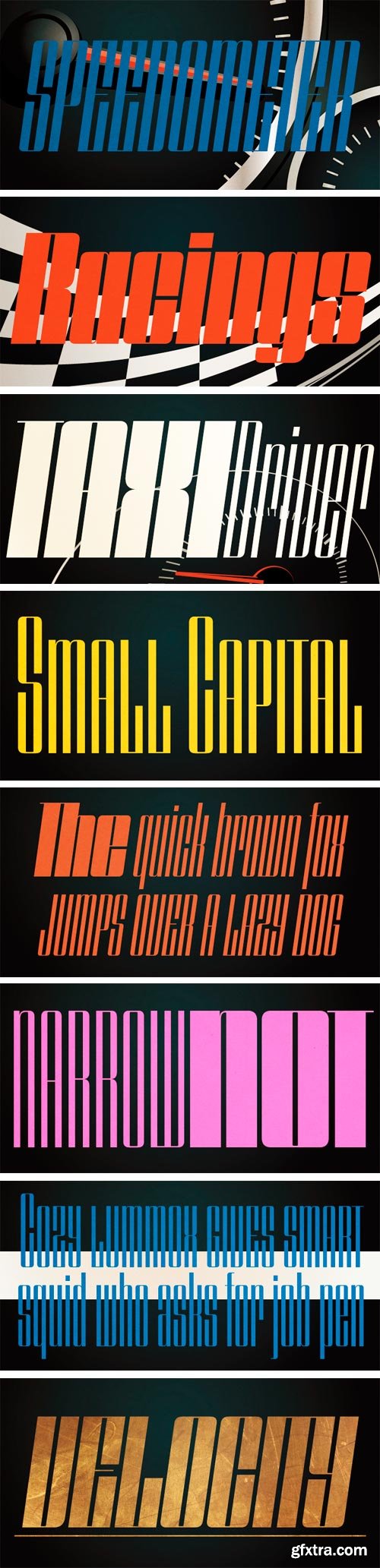
Speedometer is derived from Dimensions font family that is most narrow and black font for titling and logo. This speedometer is more elegant by its contrast between the thickness of stem and thinness of the arms than Dimensions. This contrast makes more vigorous and speedy impressions too. All 6 weights and italics have upper and lower cases, accented characters and small capital glyphs that can be used with OpenType smcp feature.
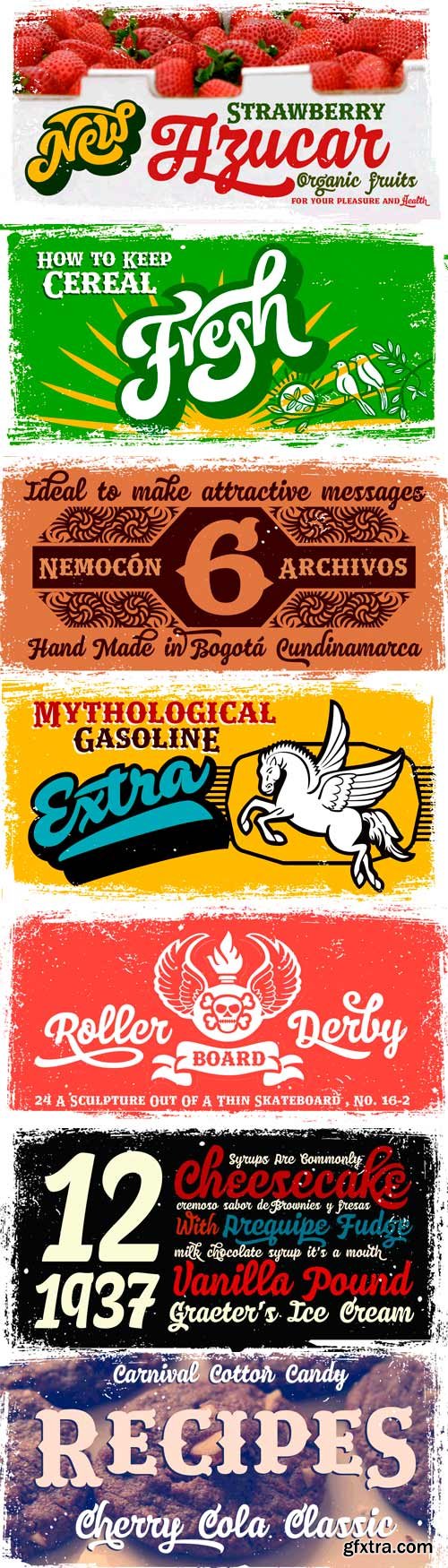
Nemocon is a display font family designed by Carlos Fabian Camargo G. Nemocon It is ideal to make attractive messages. Nemocon has over 2200 glyphs distributed in 6 files OT designed from handmade lettering and usability testing. Nemocon Script (1382 glyphs): based on the rotation of a flat tip brush. Its letters correspond to the uninterrupted calligraphic logic, as well as similar ingredients as the ones used in font Brush Script by Robert E. Smith, created for the American Type Founders in 1942. Nemocon Tuscan (375 glyphs): Inspired by representative types of wood from the 19th century, specifically speedball brawny Tuscan capitals with serifs fishtail shaped. Nemocon Catchwords (115 glyphs) + Nemocon Catchwords Shadow (115 glyphs): categorically inflated words with and without shadows, to accompany, highlight and prioritize. Nemocon Dingbats (114 glyphs) + Nemocon Containers(150 glyphs): unconventional pictograms consisting warm and comforting thoughts designed to highlight words or phrases which needed multicolored illustrations or drawings in black and white.
Sketchetik is a hand-drawn font in four styles: light, regular, bold and black.It is recommended for use as a display typeface.
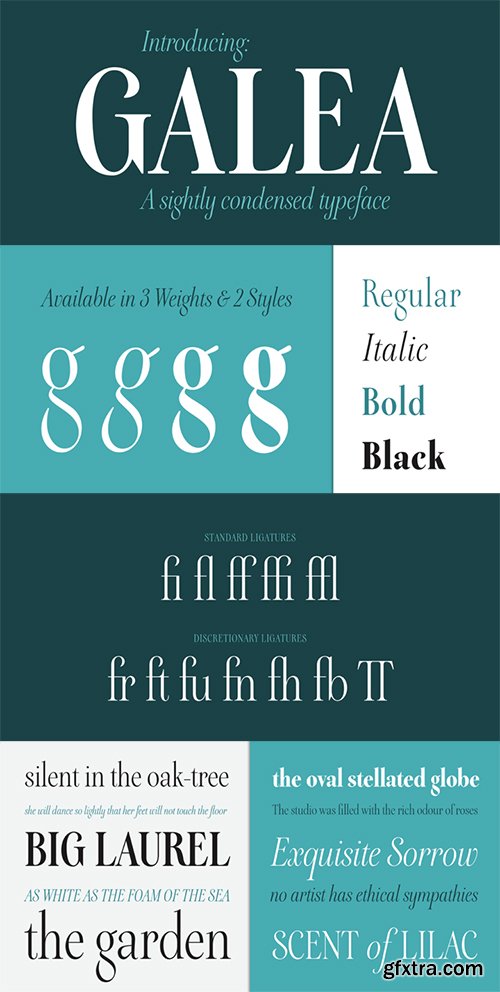
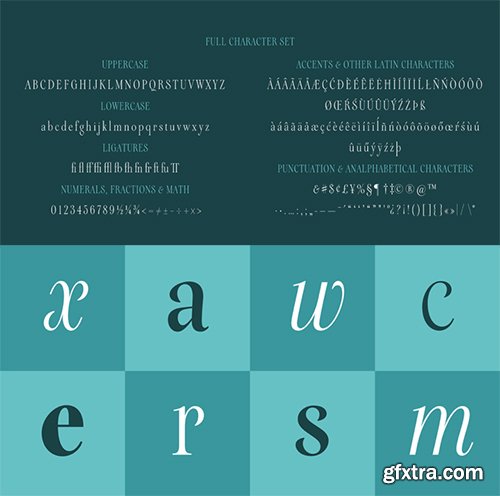
Galea is a slightly condensed serif typeface with long extenders. Its elongated proportions and graceful terminals seek to bring femininity and elegance to any layout. It is a display face that works well at large sizes in editorial contexts as a headline, titling or introduction to a text. Galea was designed by Isabel Urbina Peña while at Cooper Union’s  Extended Program, 2012 and released on May, 2014.Galea obtained an Honorable Mention from the Fine Press Book Association in the Text Family Category, 2013. Also, it is featured in the book "Playing with Type: 50 Experiments" by Lara McCormick, Rockport Press, on Parenthesis Magazine, Autumn 2013 on Behance’s Typography Served and will appear on “Typography Magazine”, Japan (Nov 2014).
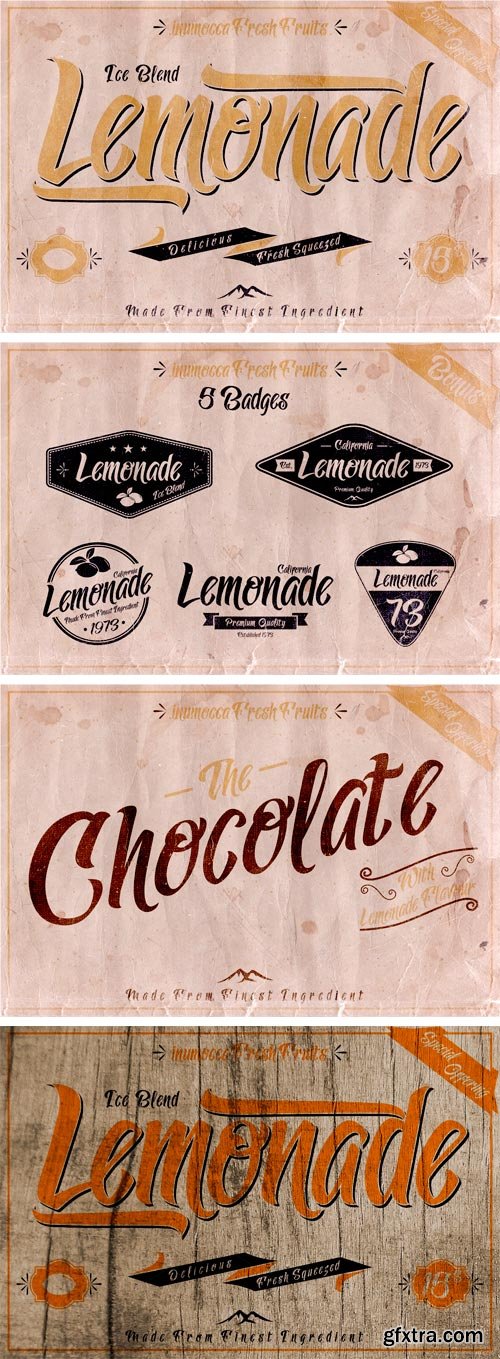
Lemonade font inspired from vintage style of packaging. Its really great font for your band, company, label, clothing company, vintage or classic stuff, etc.
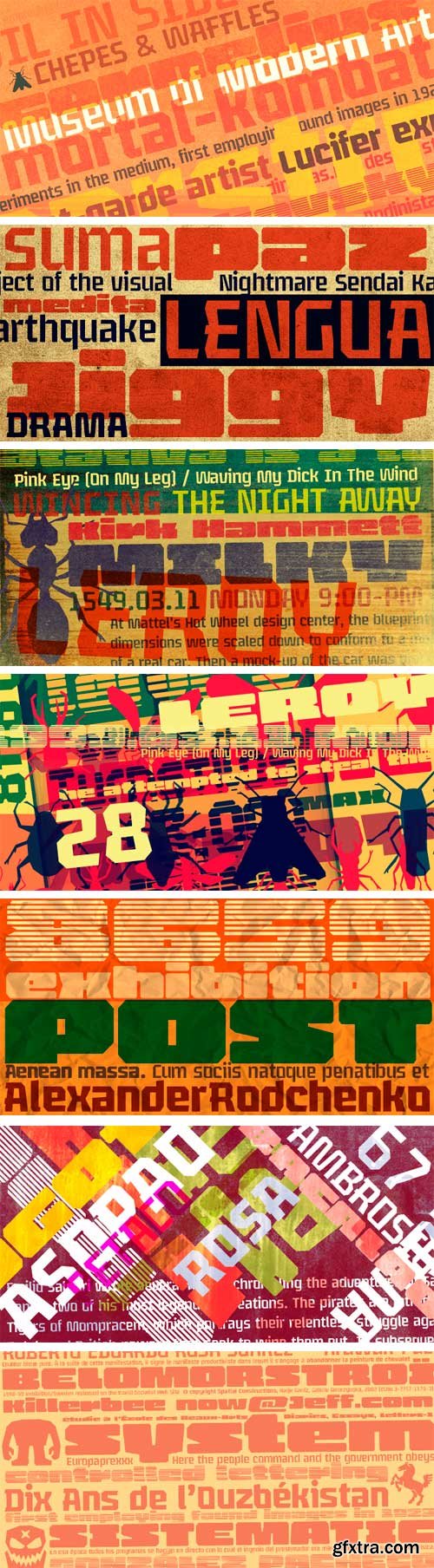
Leroy is a font family of 5 members designed from geometrizing Roman and Gothic skeletons. Its purpose is to provide optimal reading of titles and paragraphs with strong mechanical flavor. Because of this, its variables are designed to sort information in media such as labels, signs and industrial atmosphere packaging related with the Soviet Union’s fonts in 1920. This idea matured white horizontal lines superimposed on alphabets drawn with an ancient architectural team known as “Leroy K & E Controlled Lettering System”. Then that evolved into a family concept unifying its proportion to the same X height for its members, resulting in a versatile type system.Therefore, Regular and Bold variables have low contrast between thick and thin strokes. Its upstream and downstream are extremely short, generating a suitable interline that clogs the vertical area. Its overall width equal to its X height, supports its tight spacing that compacts the horizontal area. Therefore, the variant with black caliber has plenty of contrast between thick and thin strokes. The light variable has a “blind” effect radiating light halos, ideal to propose hierarchies and combinations with orthogonal projection. In that sense, Leroy’s modular character reminds constructivist ideology merged with typographical variants suitable for graphic design with geometric look.
Secca is a fine typeface honoring the roots of early German grotesque type designs but mastered for the needs of today.The weights from Light to Bold work perfectly for body text. The Ultra Black and the Hairline weights give extra typographic freedom for headlines and signage.
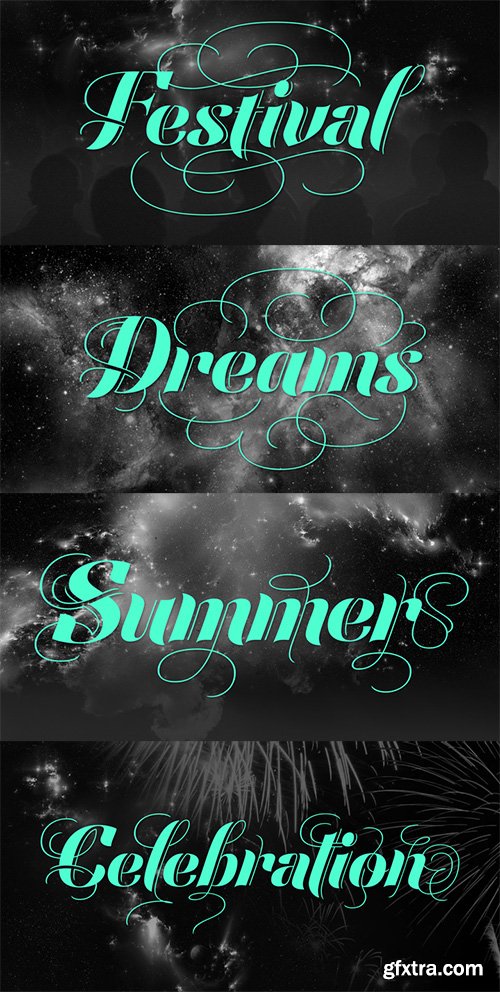
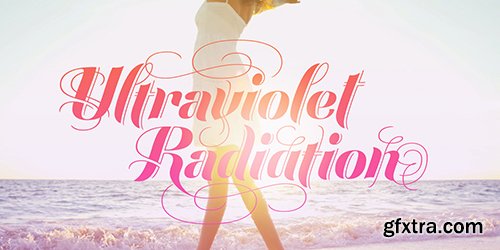
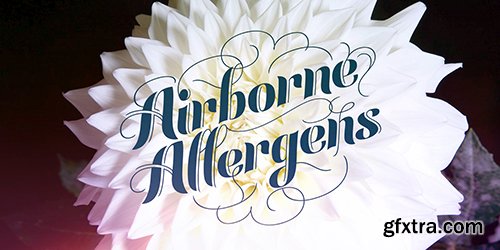
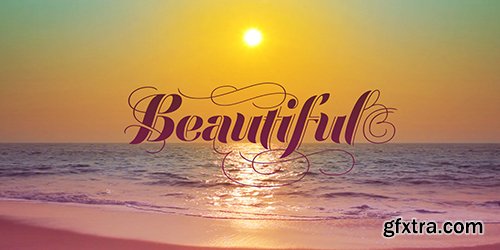
Festival Script is a logical evolution within the deco script territory previously explored by Koziupa and Paul in efforts like Aranjuez, Bellas Artes, Heraldica and Tanguera. In Festival Script, strong bilinear contrast and ornamental swashes combine to convey a sense of modern luxury. This combination echoes the current trend in consumer goods of elevating simple, everyday products to objects of desire.Festival’s basic structure is the familiar Koziupa aesthetic of tapering stems and sharp endings, but this time informed by a more geometric sensibility. A wide variety of thin, ribbonlike strokes add a beautifully ornamental feel, evoking Argentine “filete” motifs. Almost every letterform includes multiple alternates, providing design possibilities from minimal to exuberant.Festival Script Pro is loaded with alternates, swashes, endings and Latin-based language support.
Workhorse is a Sign Painter’s Gothic developed by Master Sign Painter Greg Reid. Workhorse captures the true essence of hand lettering. From the tapered waists to the elegant snaps of the brush; these elements present a warmth unseen in today’s mechanically stiff Gothics. Greg Reid and Charles Borges de Oliveira collaborated to bring this truly one of a kind typeface to fruition. With the power of Open type, Workhorse utilizes Contextual Alternates to create random variations of the capitals and lowercase letters. This allows your text to have subtle differences in the letters without losing form which helps to create an honest hand lettered look. This feature can be turned on or off to suit your individual style. You also have the ability to manually choose the glyph variations from the glyph pallet to help you create one of kind designs. Both versions of Workhorse feature complete variations of the capitals and lowercase letters (56 total), Small Caps and six alternates. The Small Caps are not just the capitals scaled down. They have been designed as a unique second set that adjusts the stroke thickness to match the existing letters, creating what we like to refer to as “Real Small Caps”. Workhorse is a timeless classic that can be used from early Americana advertising all the way up to present day modern use.? No matter how you use Workhorse it always looks and reads well.
- Lady Rene is then prepared, very much like a character in a short story, to come to life in the reader’s mind. I expect you will enjoy her as much as I did creating her.
- Joy is sure to spice up your text life! She overflows with style and personality. She loves to be center stage on headlines, flirting with her readers eyes. There are over 100 ligatures, creating words with some letters connecting and others standing on their own. This creates a modern, fresh, handwritten look.